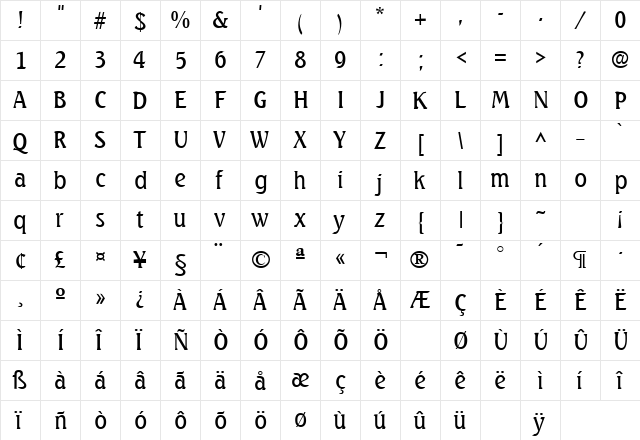
SeagullLH Regular
Design Context for SeagullLH Typeface
SeagullLH takes a measured approach to typography — its balanced proportions and neutral character make it a reliable workhorse for both digital and print work.